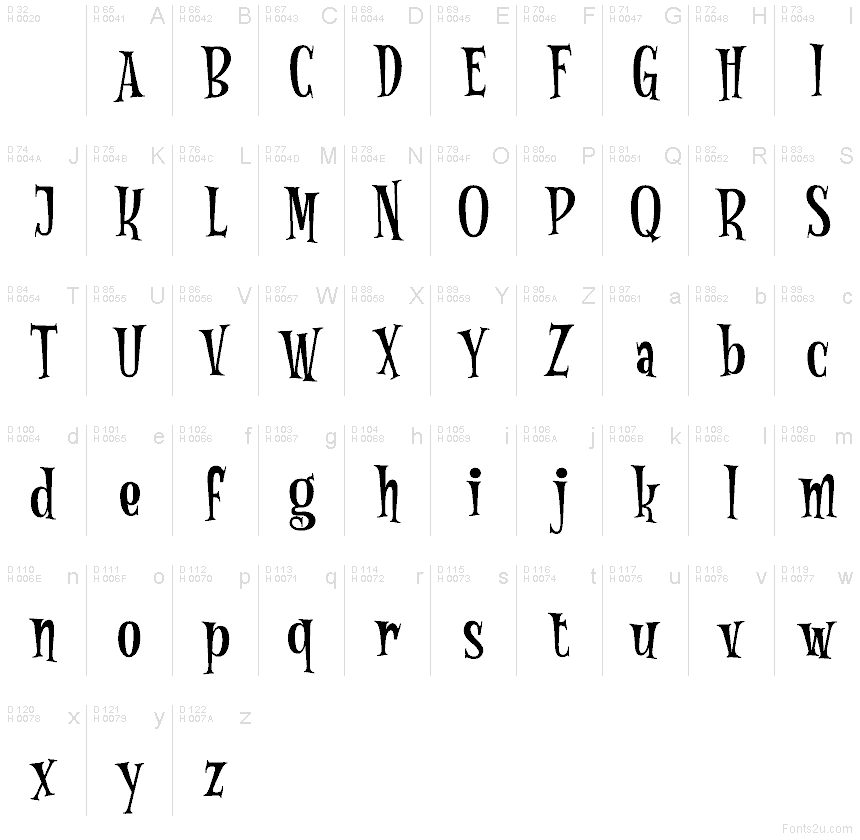
Zombies DEMO
Zombies font by Toko Laris Djaja is a free Halloween display serif font. Its bony, tapered strokes and flared serifs curl like candle-smoked paper, giving letters a creeping, off-kilter rhythm that reads instantly spooky without turning messy. The contrast is punchy yet controlled, so titles look crisp at a glance while the wavering forms whisper horror up close.
Using Zombies, you’ll nail haunted-house posters, party invitations, seasonal packaging, horror-film title cards, social media promos, and eerie event signage. This free font shines at big sizes with slightly loose tracking. For body copy, pair it with a plain, modern sans to keep the chills readable.